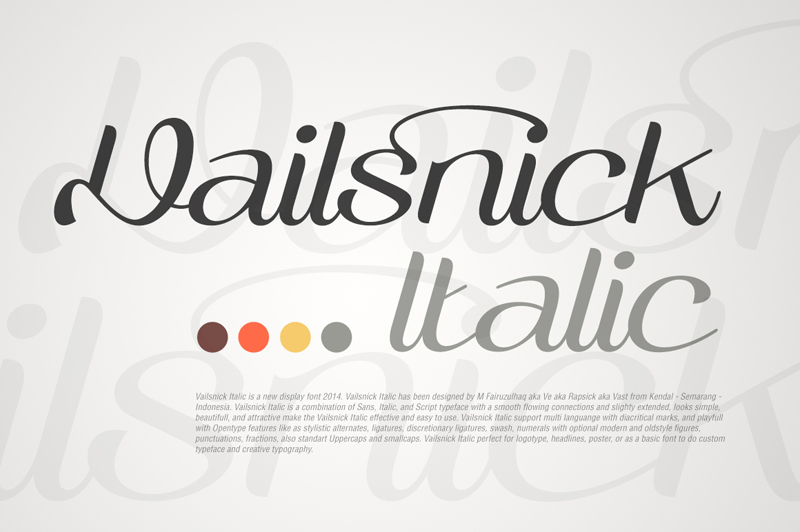
Font name: | Vailsnick |
Author: | Vast |
Note by Vast | |
Vailsnick Italic is a new display font 2014, has been designed by M Fairuzulhaq aka Ve aka Rapsick aka Vast from Kendal - Semarang - Indonesia. Combination of Sans, Italic, and Script typeface with a smooth flowing connections and slighty extended, looks simple, beautifull, and attractive. More than +1500 glyphs, support multi languange with Diacritical marks, and playfull with Opentype features. Perfect for logotype, headlines, poster, or as a basic font to do custom typeface and creative typography. Vailsnick Italic features : - Uppercaps, - Smallcaps, - Numerals (Modern & Oldstyle), - Fractions, - Punctuations, - Opentype : - Stylistic alternates, - Ligatures, - Discretionary ligatures, - Swashes. This is only Demo version, Follow this link to see all character set >> https://www.dropbox.com/sh/qgwry1ljz5nuseu/v45ABLc8Pa Please buy the license to access all the character set & opentype features >> http://crtv.mk/pTOn Vailsnick Italic has been Featured at >> http://bit.ly/1eJ9AuT KEEP IN TOUCH!!! Thanks. Kind Regards, M Fairuzulhaq |